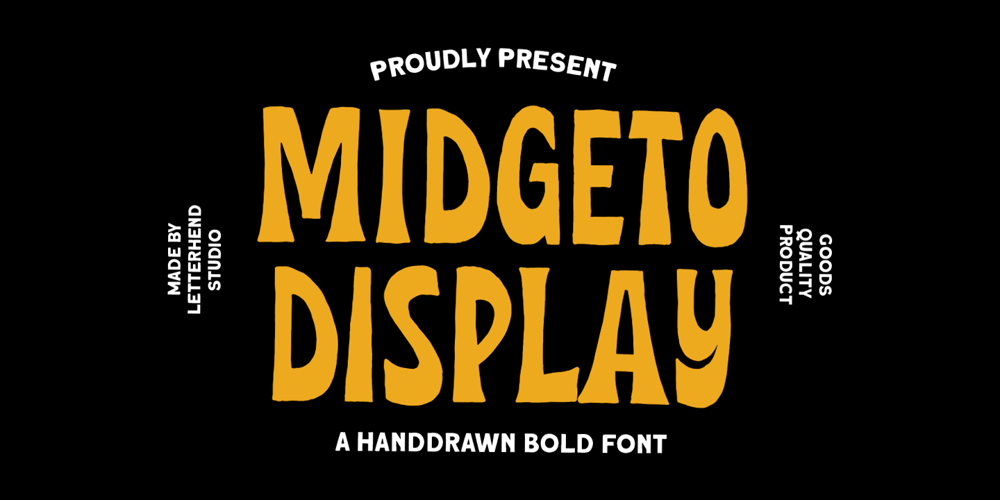
Midgeto
Midgeto font
Midgeto Font Family was designed by Hendry Juanda and published by Letterhend. Midgeto contains 2 styles and family package options. Introducing, Midgeto Display – A hand drawn display font. This font has unique shape, very suitable for casual and playful theme design. This font also perfectly made to be applied especially in logo, and the other various formal forms such as invitations, labels, logos, magazines, books, greeting / wedding cards, packaging, fashion, make up, stationery, novels, labels or any type of advertising purpose.Features : numbers and punctuation multilingual PUA encoded We highly recommend using a program that supports OpenType features and Glyphs panels like many of Adobe apps and Corel Draw, so you can see and access all Glyph variations.